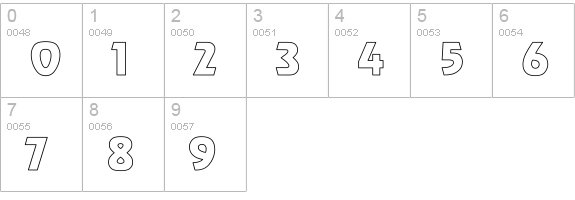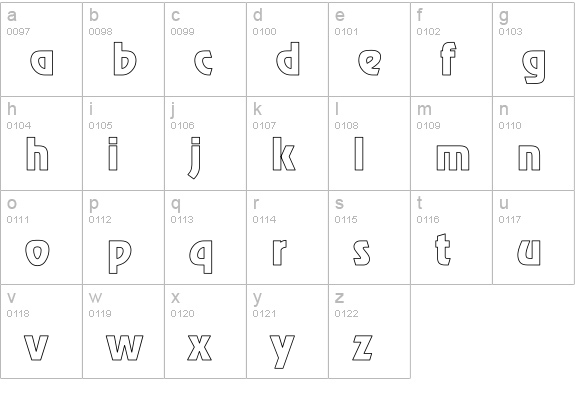
Revue Hollow is a stunningly unique font that will captivate anyone who sets their eyes upon it. Its intricate details and delicate lines make it a true work of art. The hollowed-out design adds an element of mystery and elegance, making this font the perfect choice for projects that require a touch of sophistication. With its wide range of characters and glyphs, Revue Hollow is incredibly versatile, allowing you to express your creativity in any way you desire. Whether you're designing a logo, creating eye-catching headlines, or simply adding a touch of flair to your social media posts, this font will certainly make a lasting impression. What makes Revue Hollow even more amazing is that it is completely free. Yes, you read that right - this exquisite font is freely available to download at FontsMarket.com. Now you can add a touch of class to your designs without breaking the bank. Don't miss out on the opportunity to enhance your projects with the beauty and elegance of Revue Hollow. Download it today from FontsMarket.com and let your creativity soar to new heights.